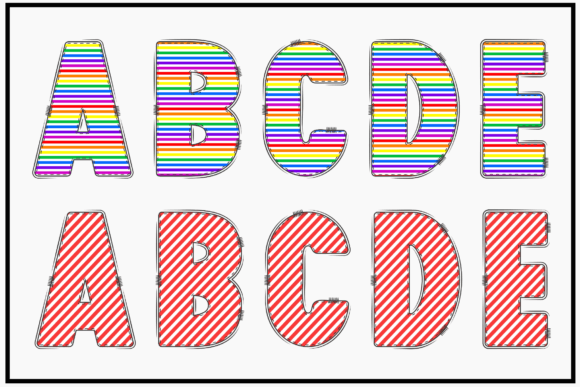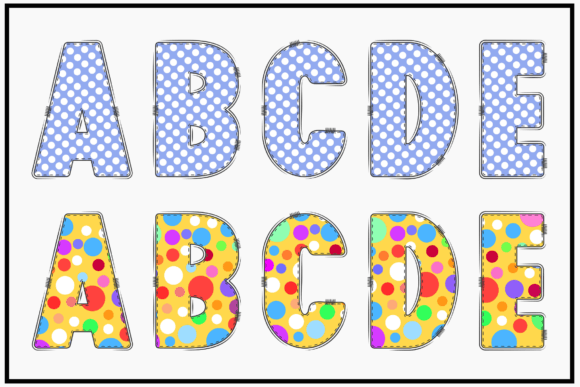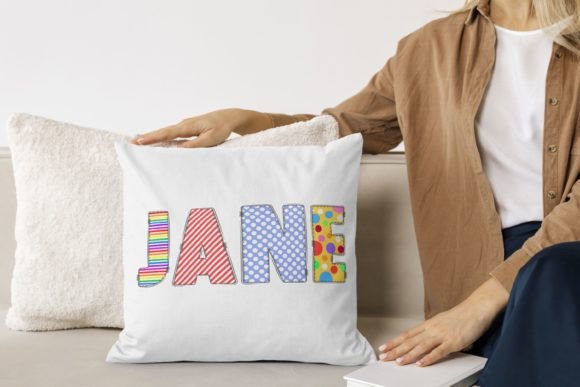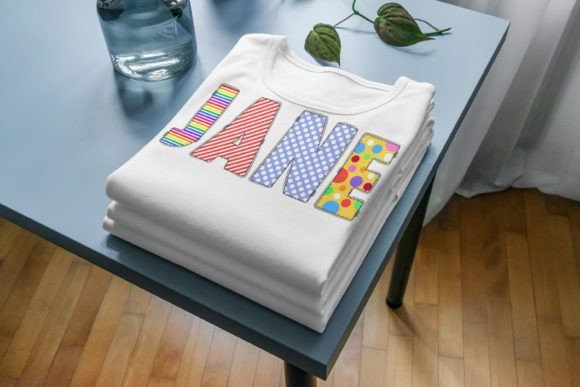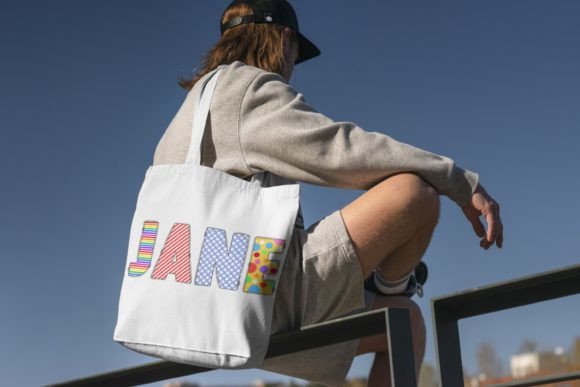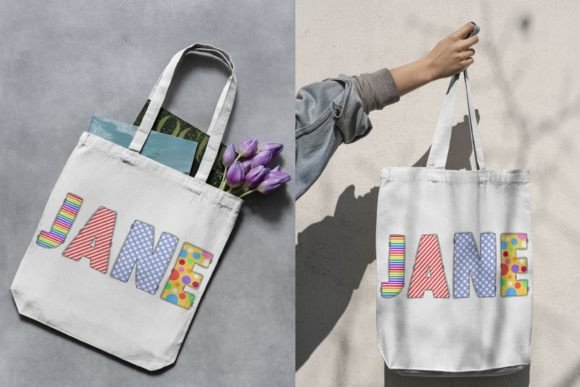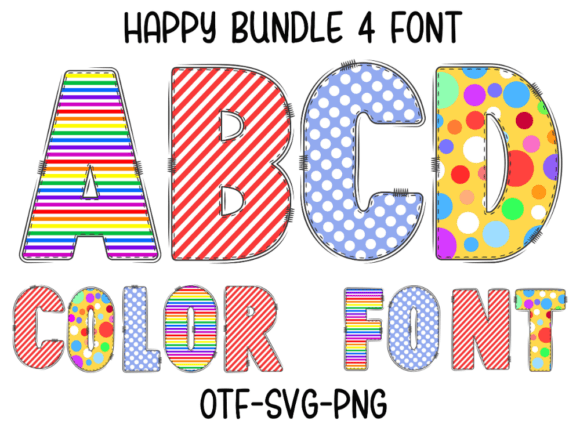
Introducing Happy Birthday Font: The Perfect Addition to Your Design Arsenal
Are you on the lookout for a font that embodies playfulness and joy? Look no further than the Happy Birthday Font! This delightful font is not only cute and lovely but also modern and friendly, making it the perfect choice for any activity that requires a jolly touch. Whether you’re a designer, crafter, or DIY enthusiast, Happy Birthday Font is sure to bring a smile to your face and add a pop of fun to your projects.
What Makes Happy Birthday Font So Special?
Happy Birthday Font is a versatile and vibrant color font that is sure to make your designs stand out. Its playful and cheerful vibe makes it perfect for a wide range of applications, from birthday cards and party invitations to social media graphics and craft projects. The font’s modern and friendly design ensures that it will appeal to a wide range of audiences, making it an excellent choice for designers and crafters who want to create engaging and effective designs.
Why Choose Happy Birthday Font?
So, why should you choose Happy Birthday Font for your next design project? Here are just a few reasons why this font stands out from the rest:
- Playful and cheerful vibe: Happy Birthday Font is the perfect way to add a touch of fun and whimsy to your designs.
- Modern and friendly design: This font’s modern and friendly design ensures that it will appeal to a wide range of audiences.
- Versatile and vibrant color options: The color version of Happy Birthday Font offers a range of vibrant color options to make your designs pop.
Tips and Tricks for Using Happy Birthday Font
To get the most out of Happy Birthday Font, here are a few tips and tricks to keep in mind:
- Experiment with different colors: The color version of Happy Birthday Font offers a range of vibrant color options. Don’t be afraid to experiment and find the perfect combination for your design.
- Pair with complementary fonts: Happy Birthday Font pairs well with a range of complementary fonts. Try pairing it with a clean and simple sans-serif font for a striking contrast.
- Use for a range of design applications: Happy Birthday Font is perfect for a wide range of design applications, from birthday cards and party invitations to social media graphics and craft projects.
In conclusion, Happy Birthday Font is a versatile and vibrant color font that is sure to bring a touch of fun and whimsy to your designs. With its playful and cheerful vibe, modern and friendly design, and compatibility with a range of design programs, this font is perfect for designers, crafters, and DIY enthusiasts alike. So why wait? Download Happy Birthday Font today and start creating your own unique and engaging designs!